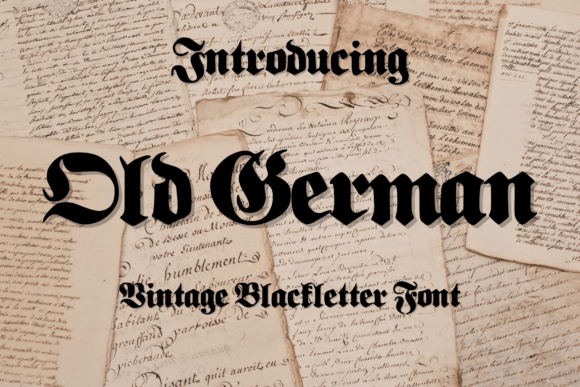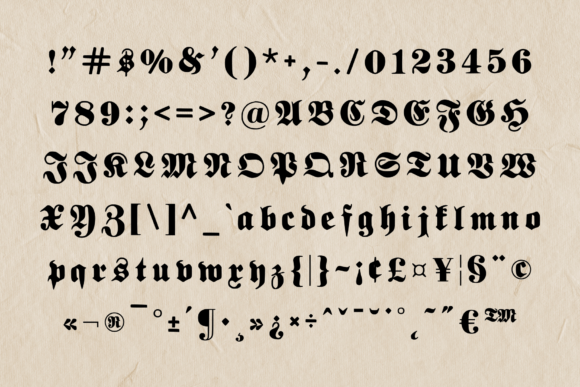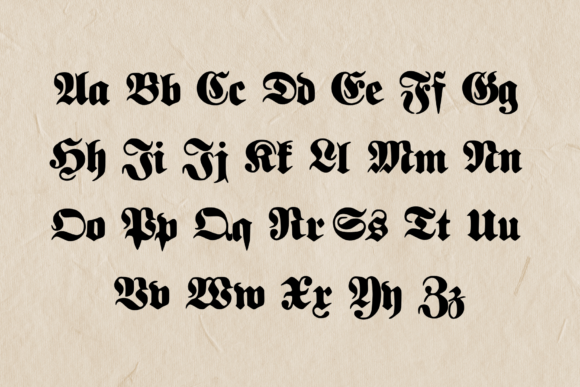
Old German Font
About the Old German Font
Elevate your designs with Old German Font, a font that combines sophistication with readability. Old German is a modern, vigorous, and confident font. Its antique style and the unique calligraphy of the characters will bring a firm touch to your project ideas.
Old German excels in display applications such as headlines, logos, and short, impactful statements on posters or packaging. Its strong character makes it ideal for brands conveying heritage, tradition, or a sense of authority. Avoid using it for body text or lengthy paragraphs; its ornate nature can hinder readability in smaller sizes.
The font’s personality is bold and authoritative, yet possesses a touch of classic elegance. This makes it suitable for projects that require a strong visual presence without being overly aggressive.
Pairing Old German with a clean sans-serif like Helvetica or a minimalist geometric font will create a strong contrast, allowing the display font to shine. For a softer contrast, consider a neutral serif like Garamond or a slightly more playful script font.
Old German Font Usage Examples
Old German Font Example